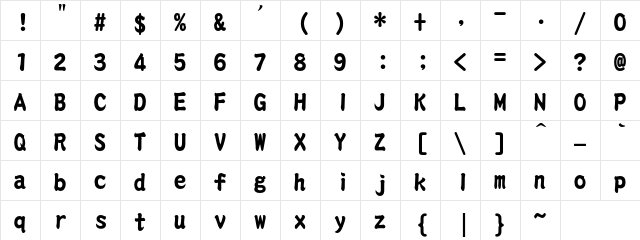
DFBangShuW8U-B5 Regular
Design Context for DFBangShuW8U-B5 Typeface
DFBangShuW8U-B5 takes a measured approach to typography — its balanced proportions and neutral character make it a reliable workhorse for both digital and print work.